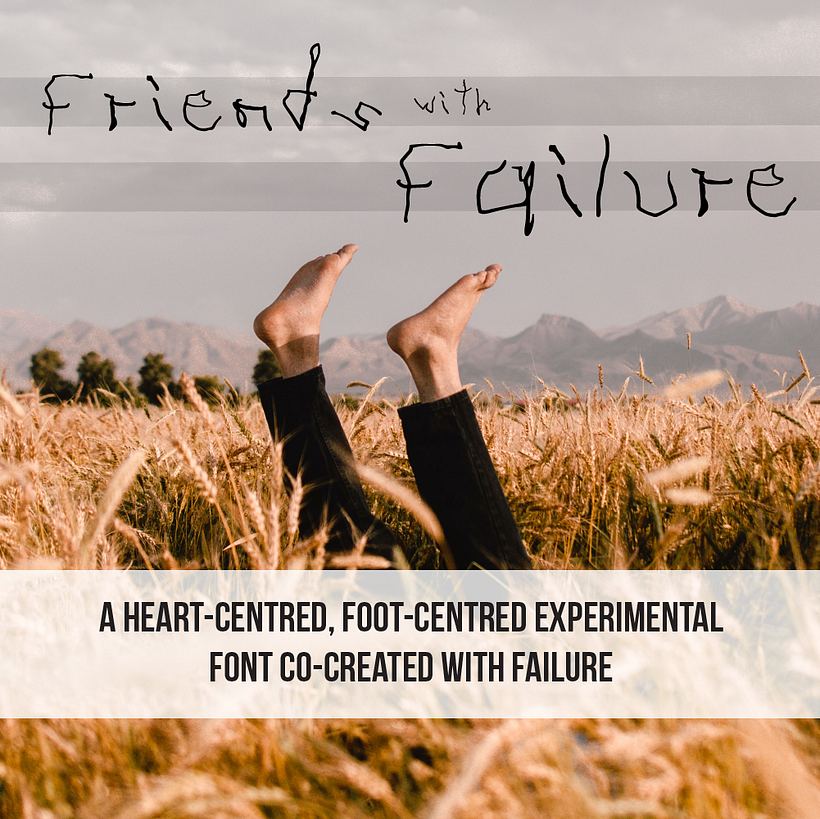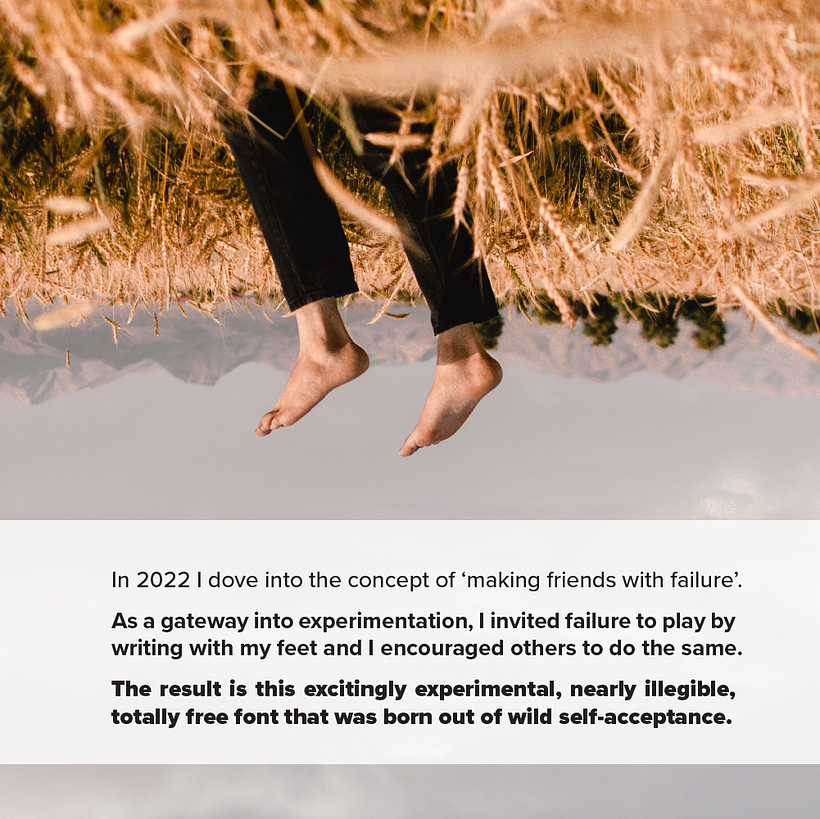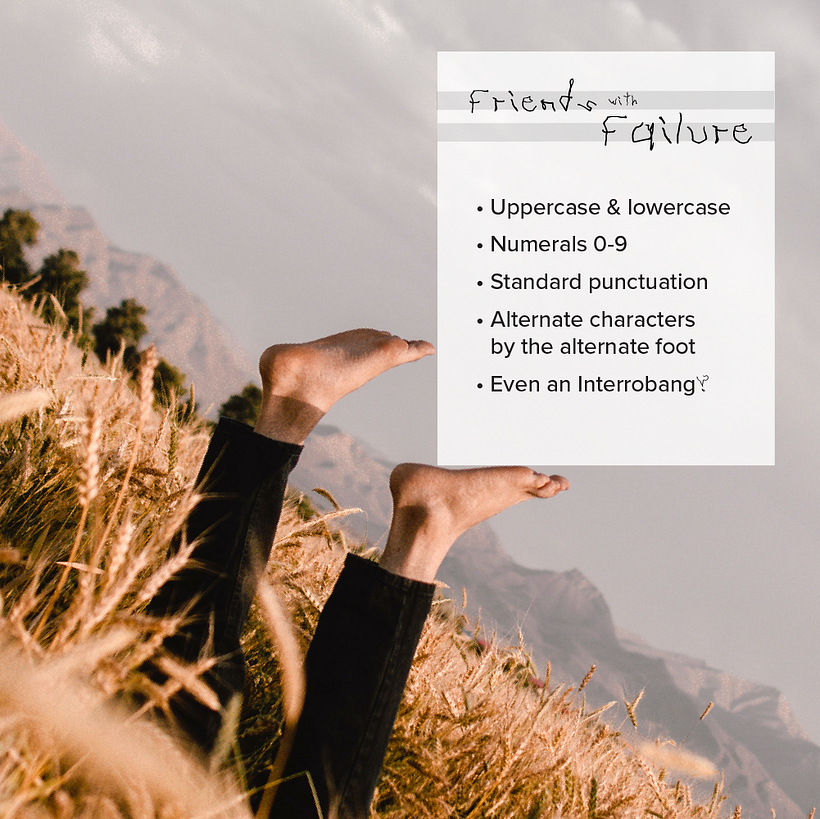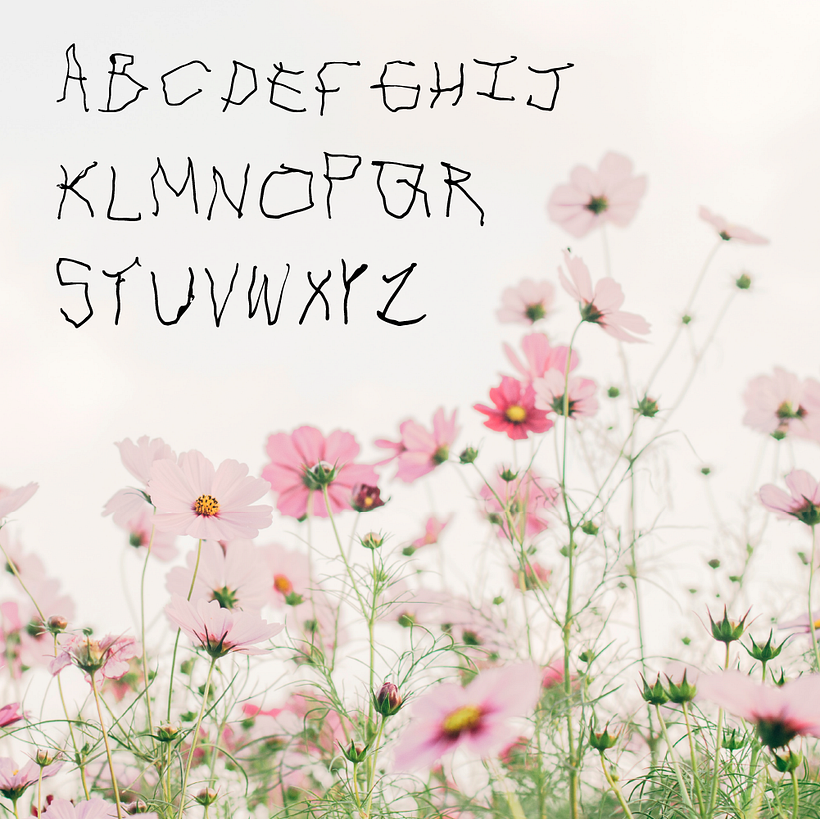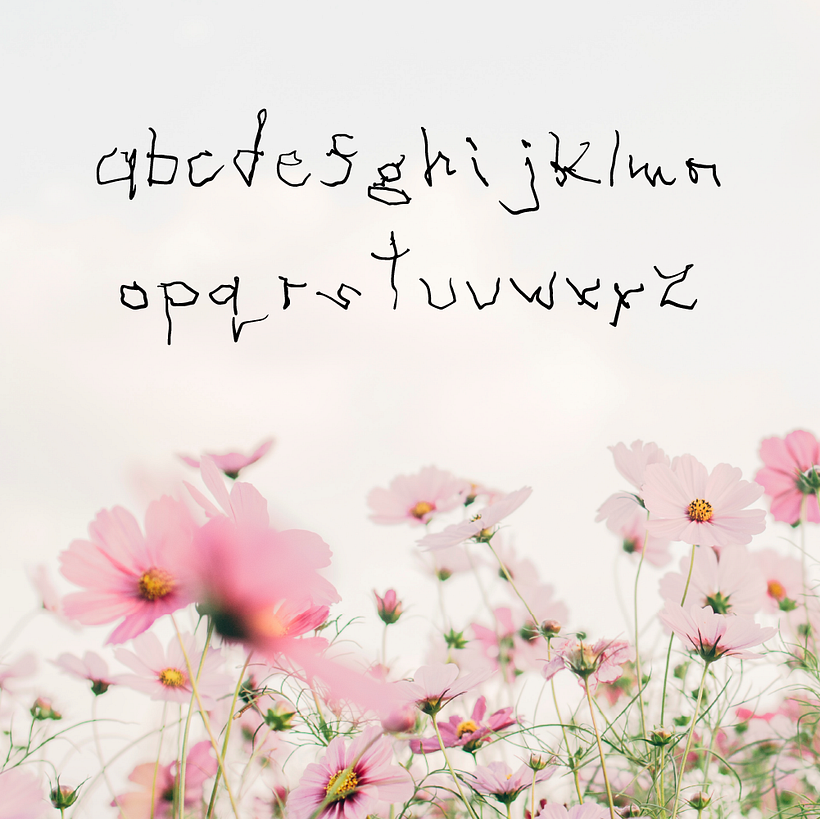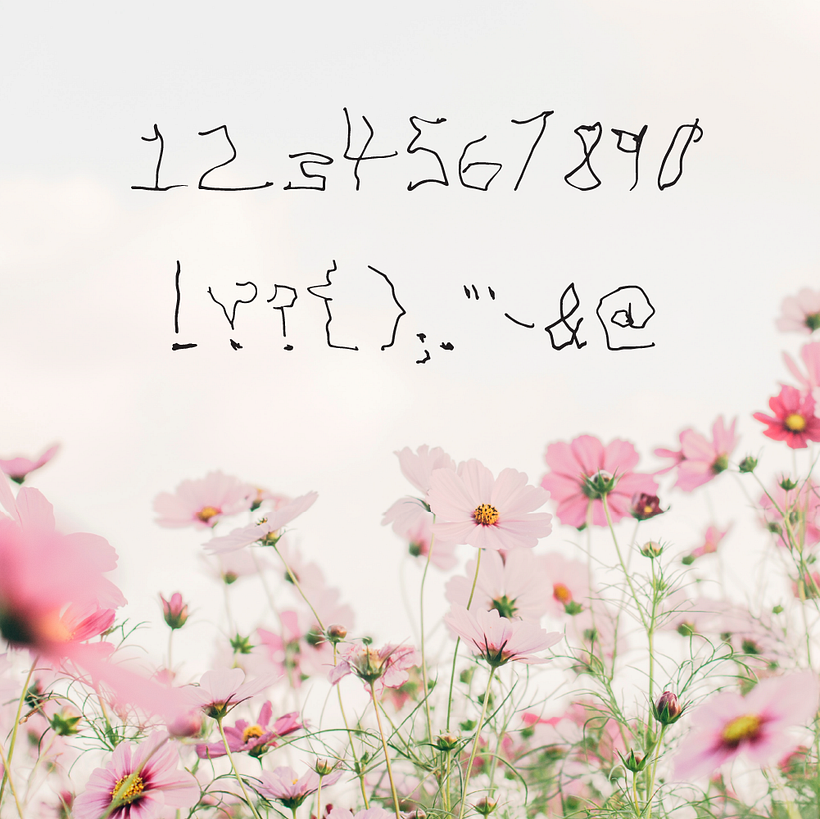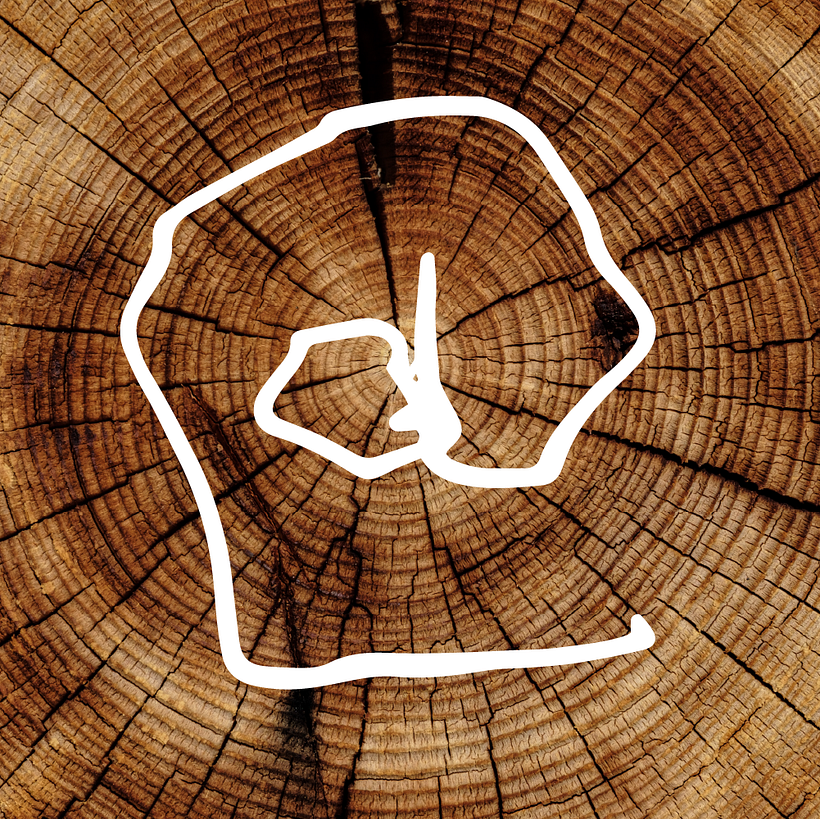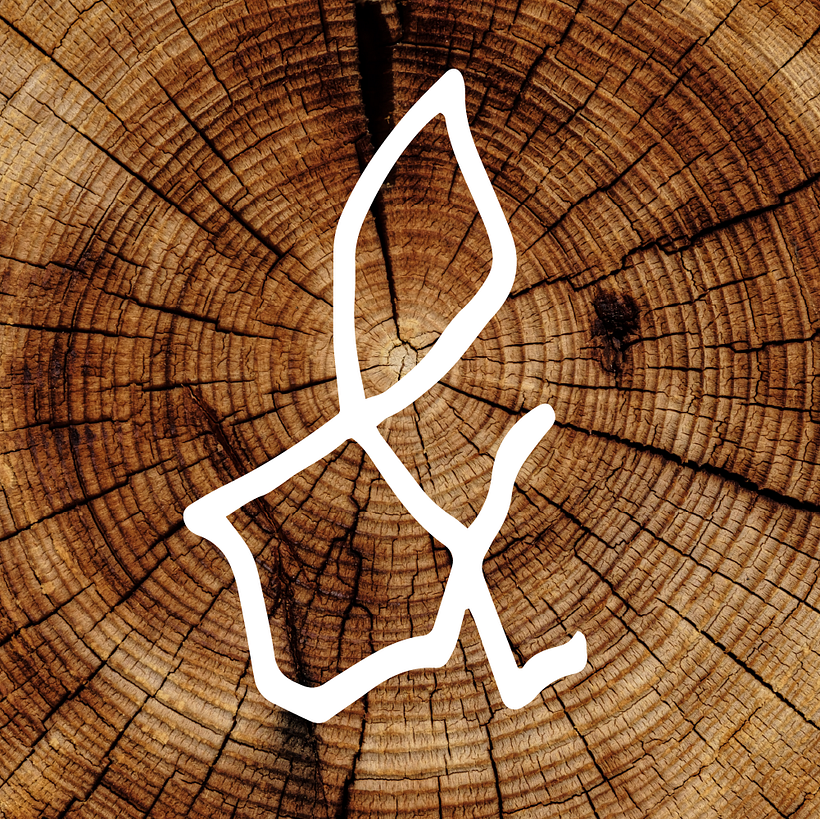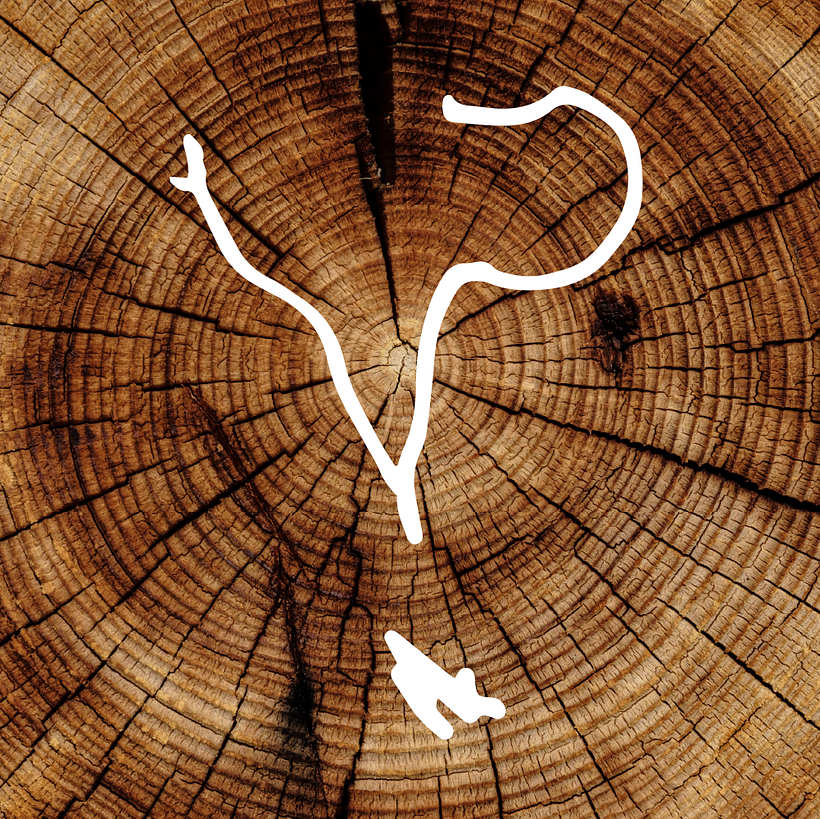
NEW Free Font: Friends With Failure
In 2022 I dove into the concept of ‘making friends with failure’.
As I dug deep for the creation of my Domestika course ‘Boosting Creative Confidence: Unleash Your Potential’, I came to better understand fear of failure in creative work and ways to dance with it rather than fight against it. As part of preparing for the course, I hosted a number of impromptu workshops with my TMU students, often asking them to trust me as we tried new things together. As a gateway into experimentation, I invited failure to play by writing with my feet, encouraging others to do the same.
As I dug deeper and deeper into the topic of failure in creative thinking and making, I better understood Failure as a helpful co-creator — a separate entity from myself — rather than something internal and scary. By first establishing a healthier boundary with Failure, I continued inviting it to play through toe-writing in workshops and presentations for The Association of Graphic Designers (RGD), GCM TMU and Awwwards.
I decided it was time to turn my foot-lettering (an alternative to hand-lettering!?) into a fully-functional font. The result is this excitingly experimental, nearly illegible, totally free font that was born out of wild self-acceptance.
Features:
- Uppercase & lowercase letters
- Numerals 0-9
- Standard punctuation
- Alternate characters by the alternate foot
- Includes an interrobang!?
Ideas for Use:
- Creative manifestos
- Love notes to Failure
- Resignation letter from a job that sucks
- An alternative, equally inappropriate font to replace Comic Sans; perfect for passive-aggressive memos in shared work kitchens, day care signage and DIY body scrub packaging ;)